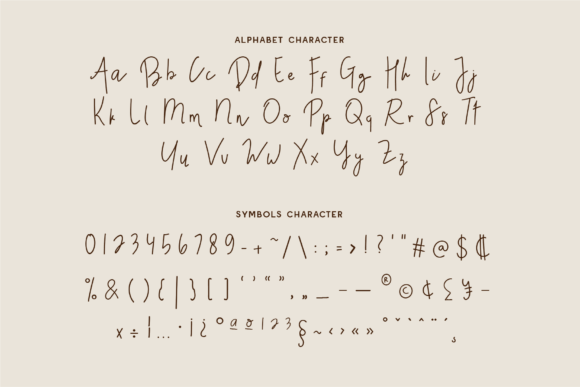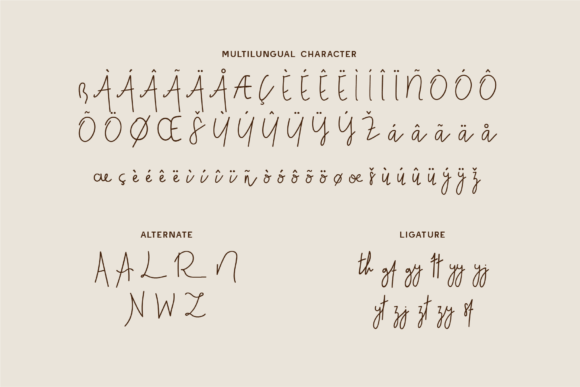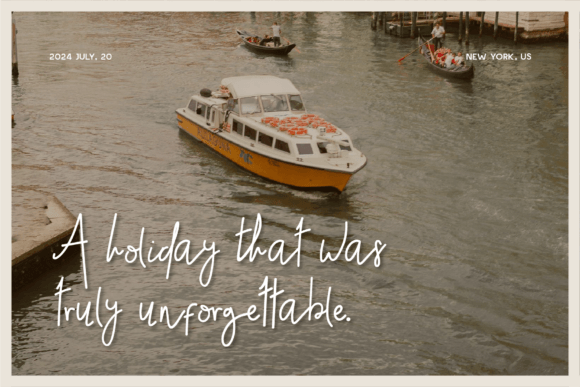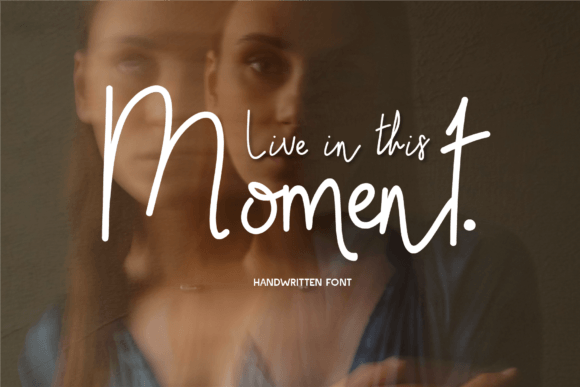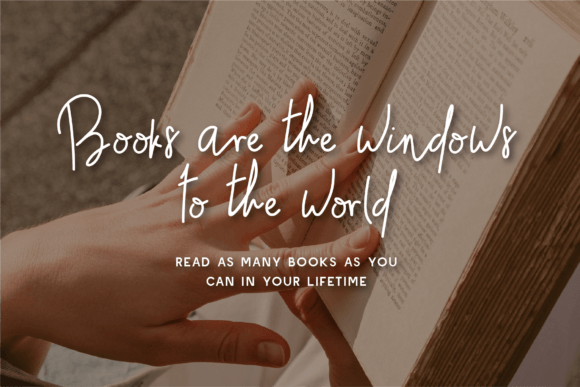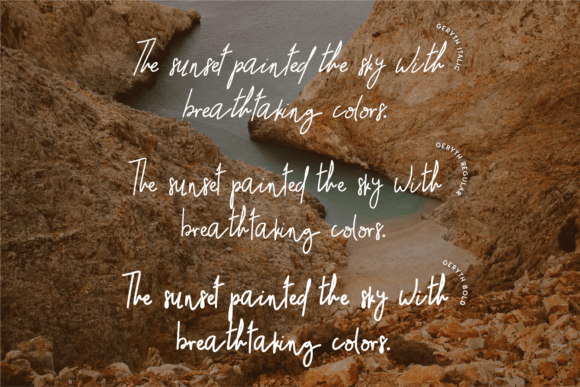
The Geryth Font: A Signature-Style Handwritten Font for Creative Projects
Have you ever been working on a design project, pouring your heart and soul into every detail, only to get stuck on one thing: the font? I recall a particularly frustrating experience when I was creating a wedding invitation for a friend. I wanted a font that was elegant, yet approachable; sophisticated, yet warm. And then, I stumbled upon Geryth.
Geryth is a signature-style handwritten font that embodies a casual and effortless flow. Its natural freehand strokes create a sense of authenticity, making it ideal for personal branding, invitations, or any design that requires a touch of elegance and warmth. With three versatile styles, Geryth adapts seamlessly to various design contexts, adding a sophisticated, yet approachable feel.
What I Love About Geryth
- ✨ Smooth curves and organic shapes: Geryth’s unique charm lies in its smooth curves and organic shapes, giving it a refined yet friendly look.
- ✅ Effortless flow: The font’s casual and effortless flow makes it perfect for designs that require a touch of elegance and warmth.
- 💫 Three versatile styles: Geryth comes in three styles, making it adaptable to various design contexts.
While Geryth is an excellent font, there are a few things to keep in mind:
- ⚠️ Limited use in very formal designs: Geryth’s casual nature might not make it the best fit for very formal designs, such as corporate reports or academic papers.
- 🤔 Requires attention to spacing: As with any handwritten font, Geryth requires attention to spacing to ensure it looks its best.
Geryth was inspired by the art of hand-lettering and the desire to create a font that feels both personal and sophisticated. The designer aimed to craft a font that would evoke a sense of warmth and approachability, while still maintaining a level of elegance and refinement.
| What is Geryth? | Geryth is a signature-style handwritten font with a casual and effortless flow. |
| What is Geryth best used for? | Geryth is ideal for personal branding, invitations, or any design that requires a touch of elegance and warmth. |
| Is Geryth available in multiple styles? | Yes, Geryth comes in three versatile styles, making it adaptable to various design contexts. |